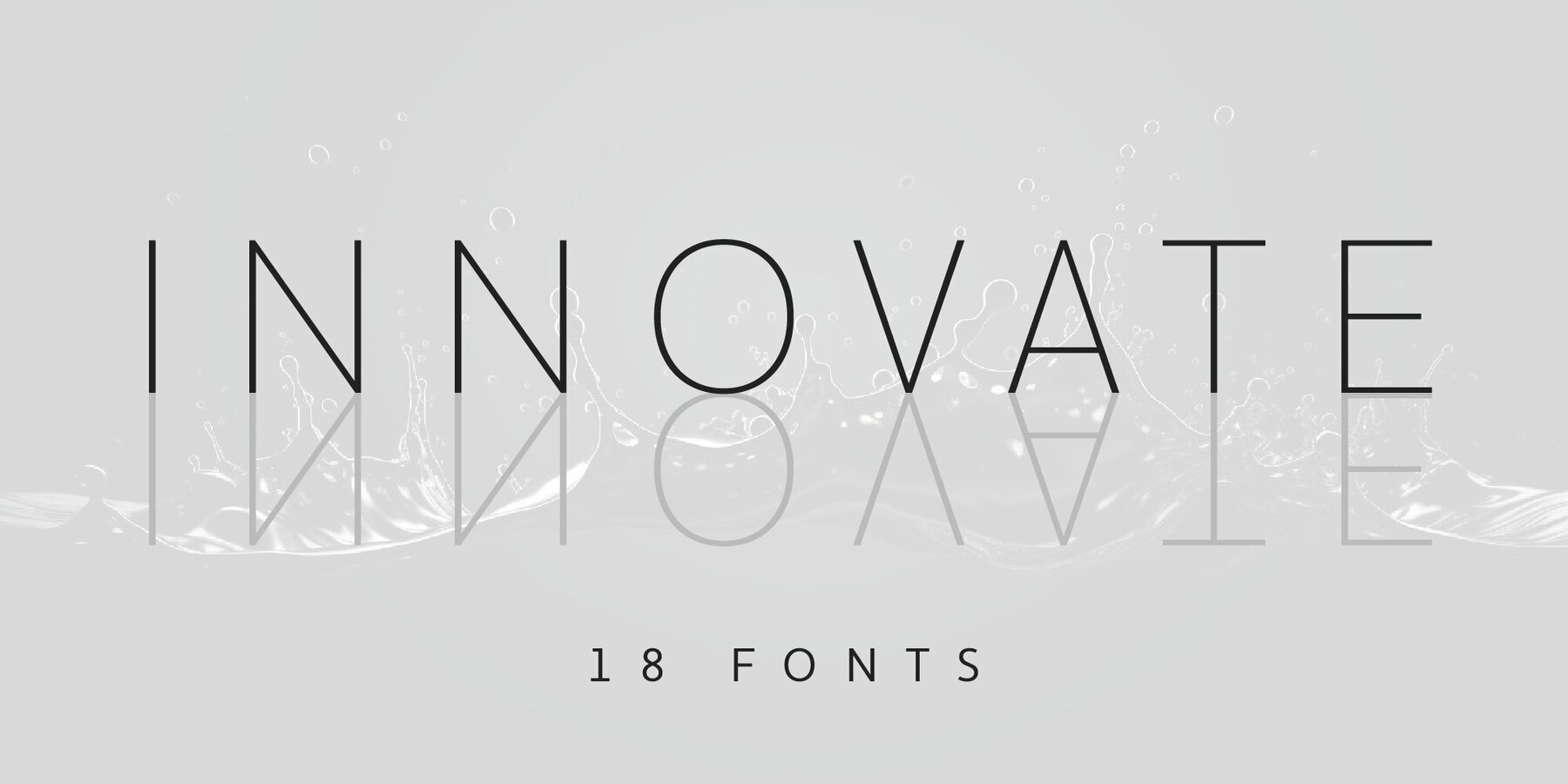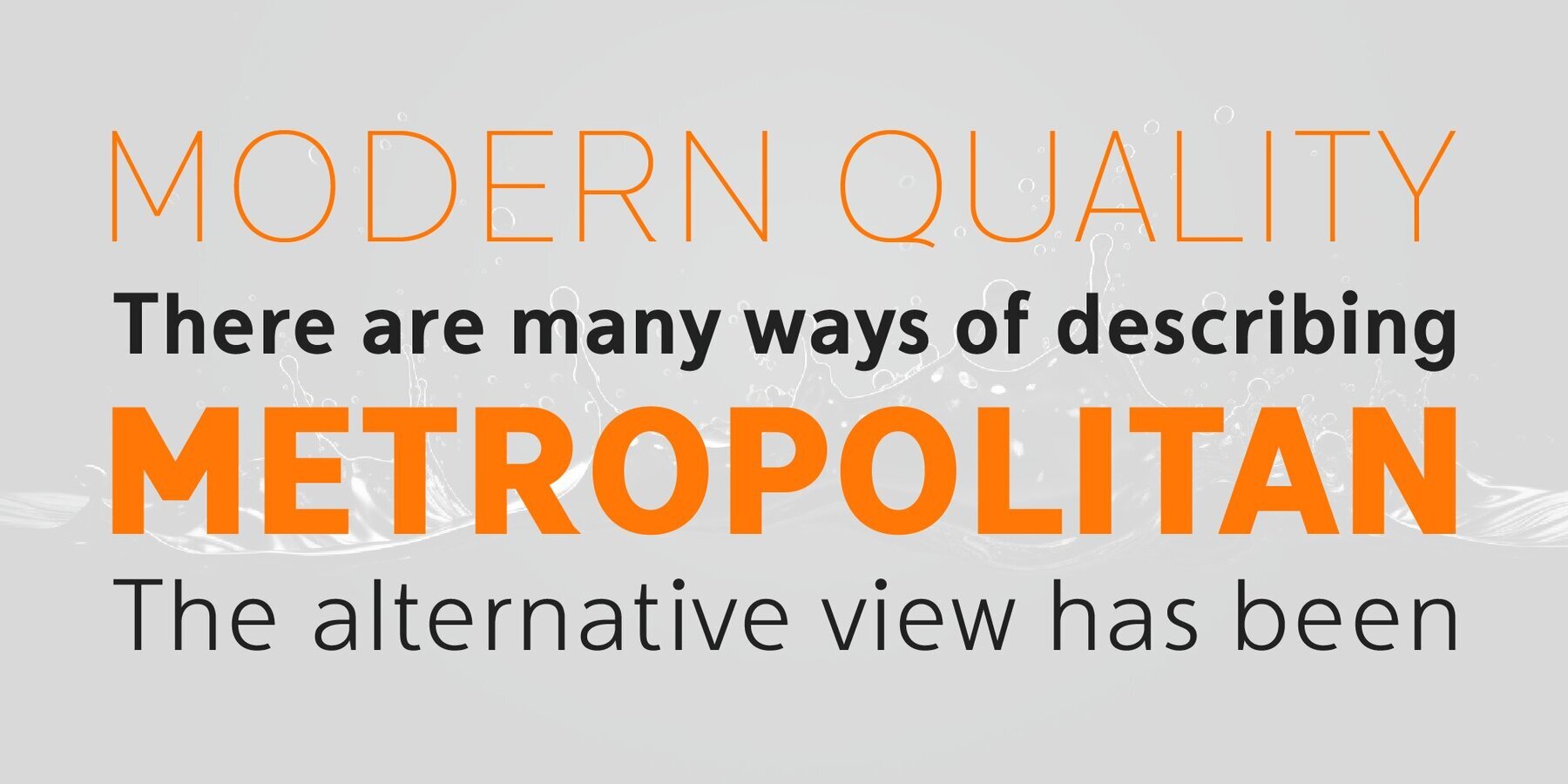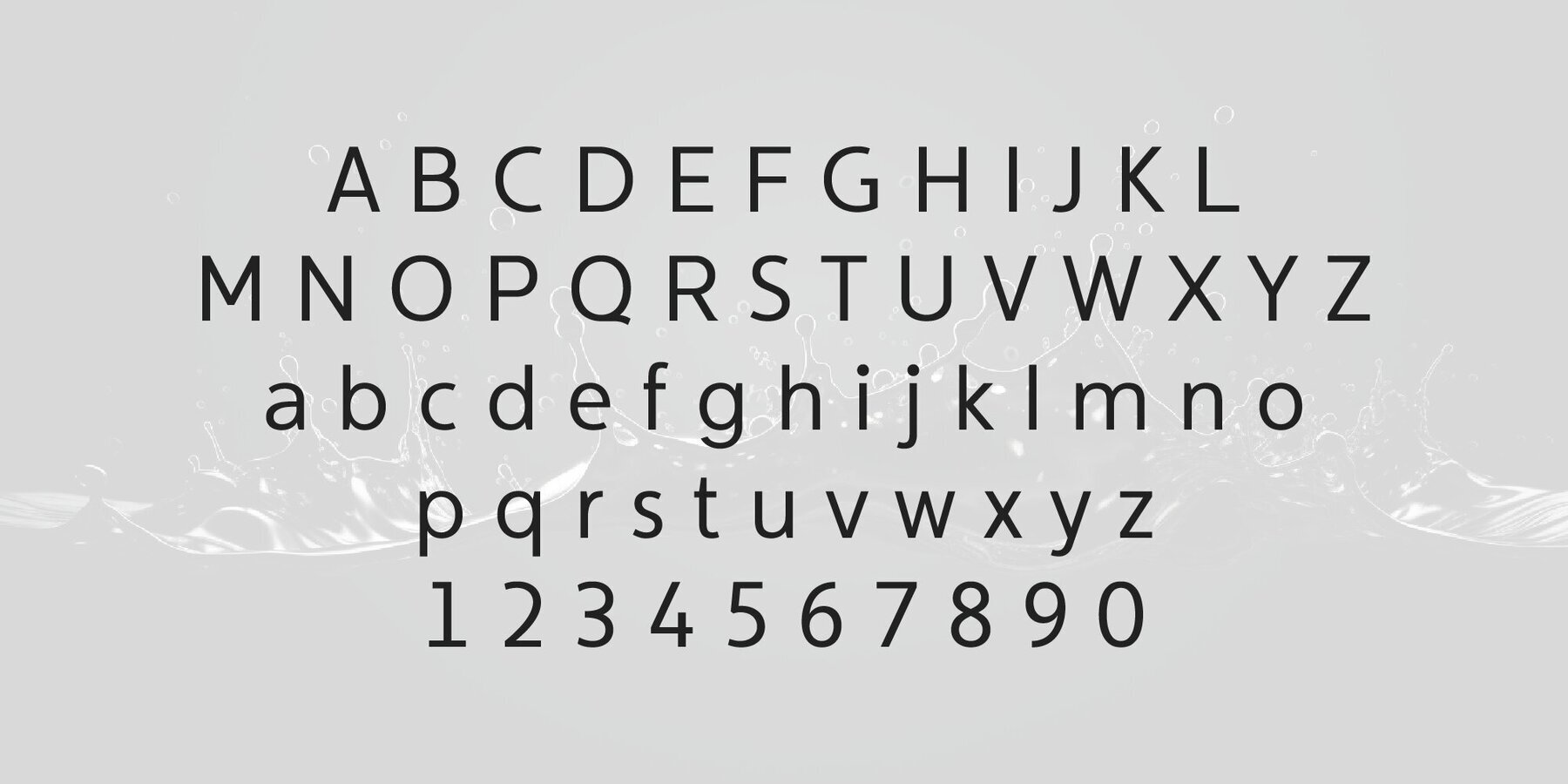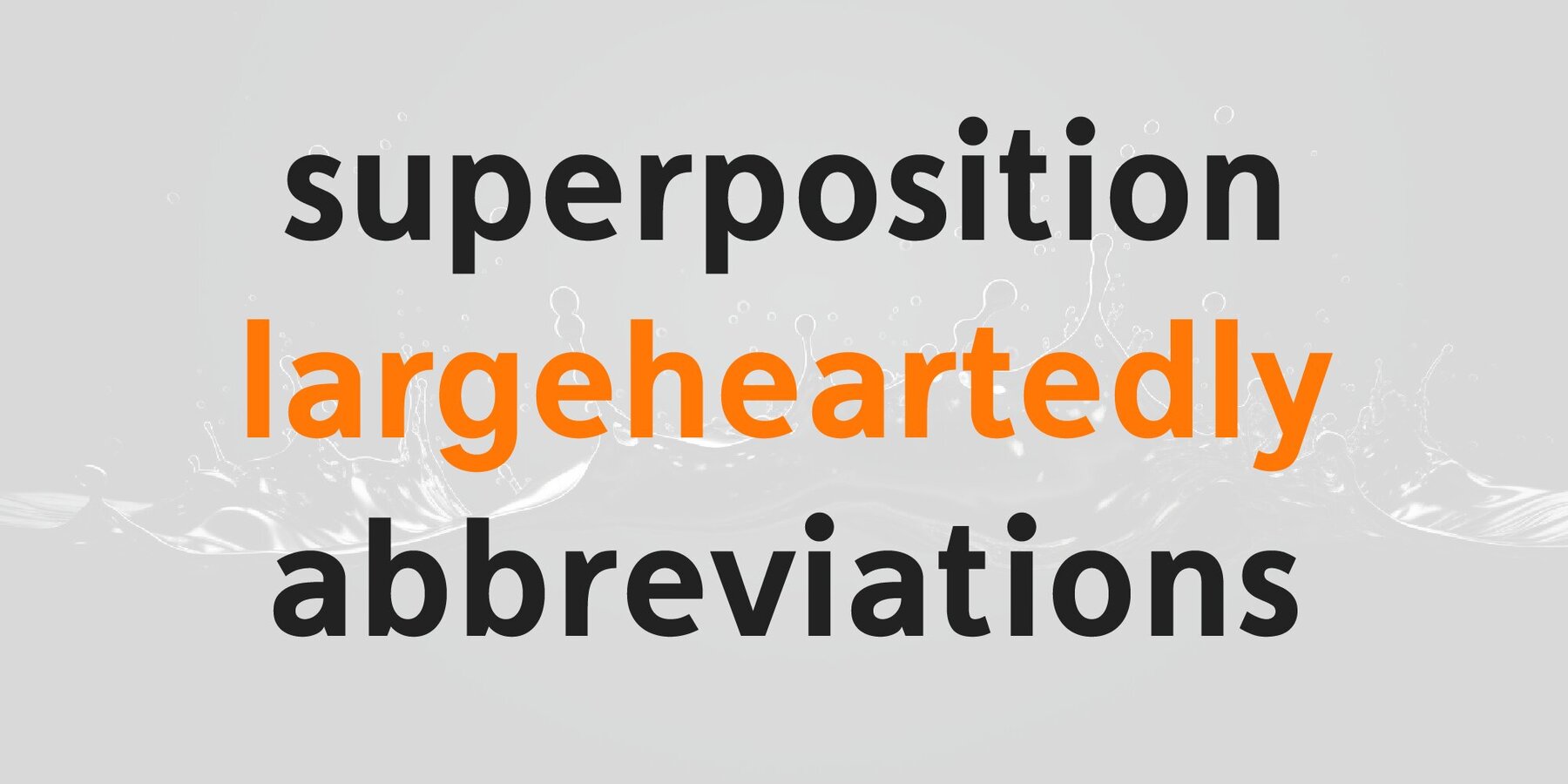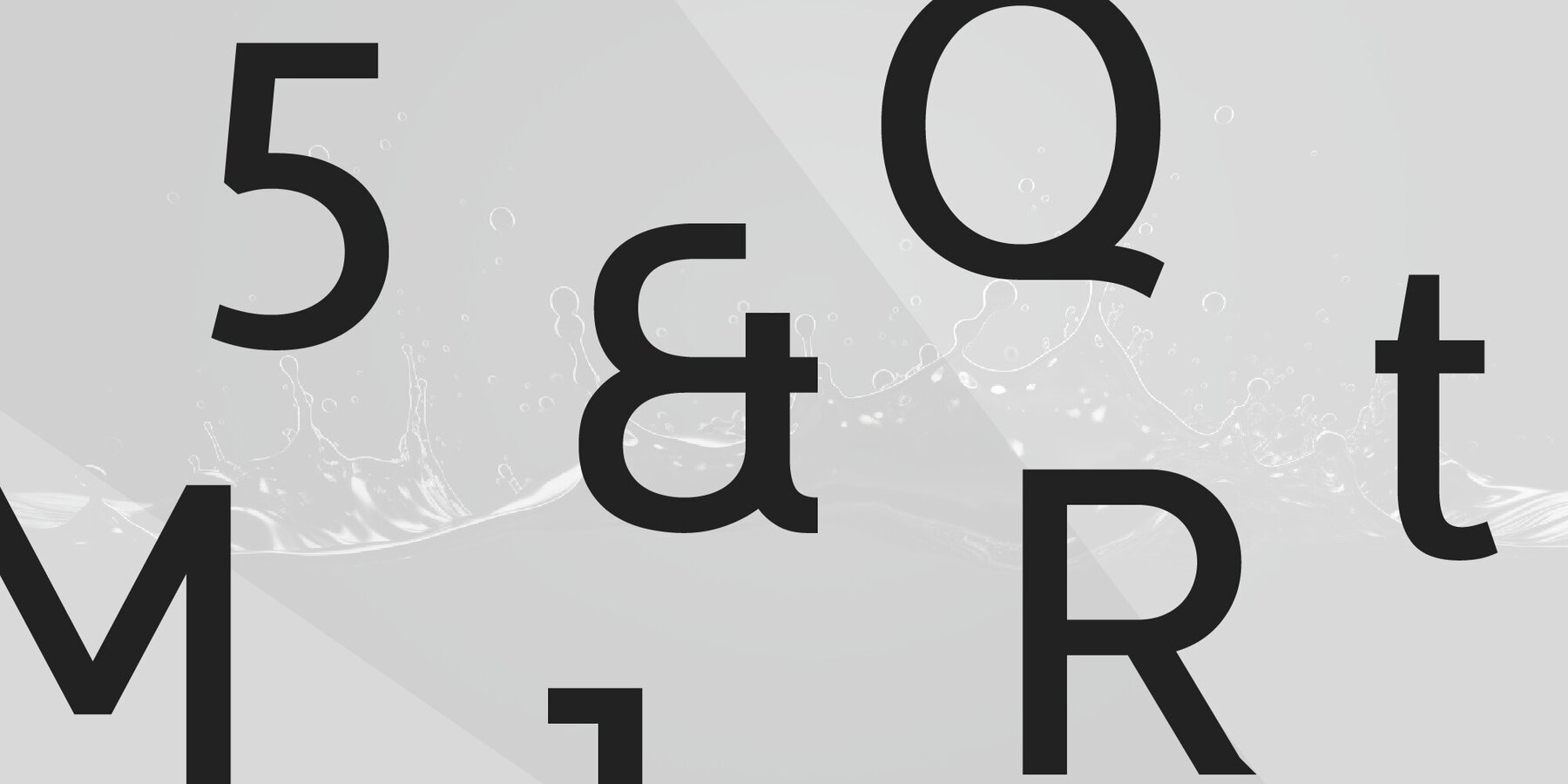
Innovate Font
Innovate is a modern versatile sans-serif typeface. What differentiates Innovate from the other fonts is an exceptionally distinctive design. It is brilliantly suited for graphic design and display use and perfect for logotypes, t-shirts, packaging, brand identity, books, magazines, newspapers, posters, billboards, and advertising.
Savchuk Mykola began his career as a graphic designer. Over time, he had a desire to create a font that would reflect his view of typography. ‘They say that all ingenious things are simple, although unique. In my future projects, I want to reflect simplicity on the one hand and uniqueness on the other, providi...